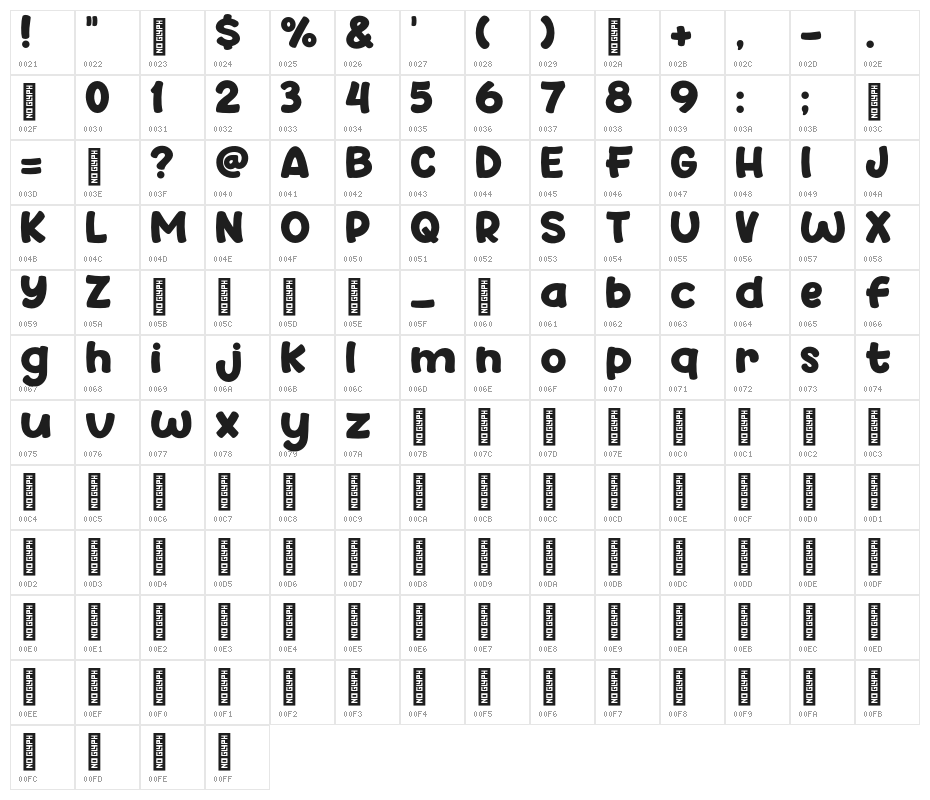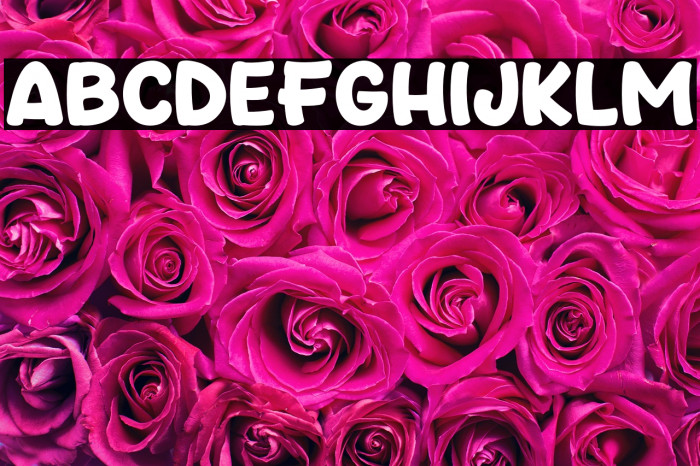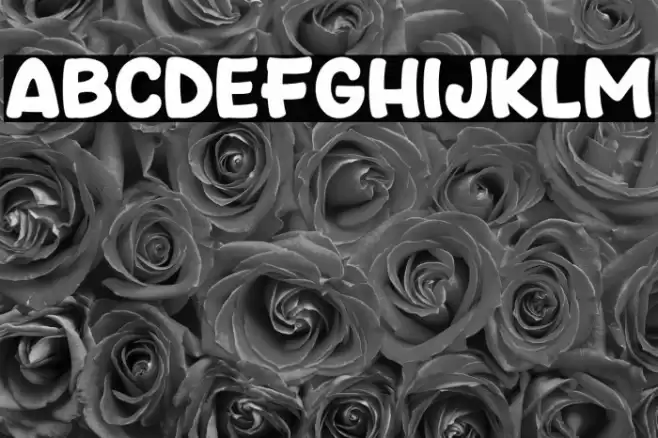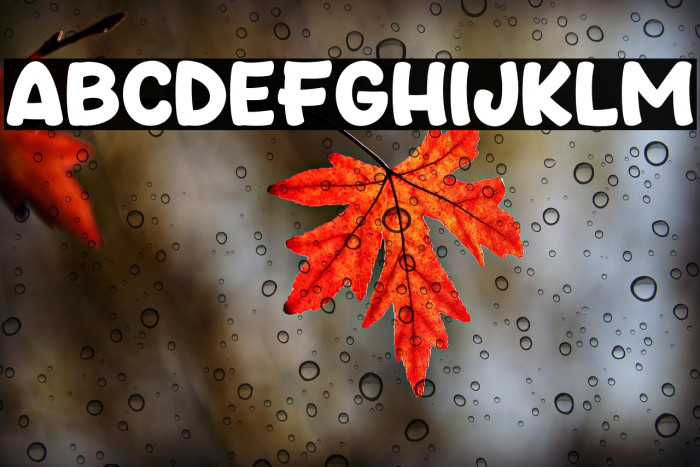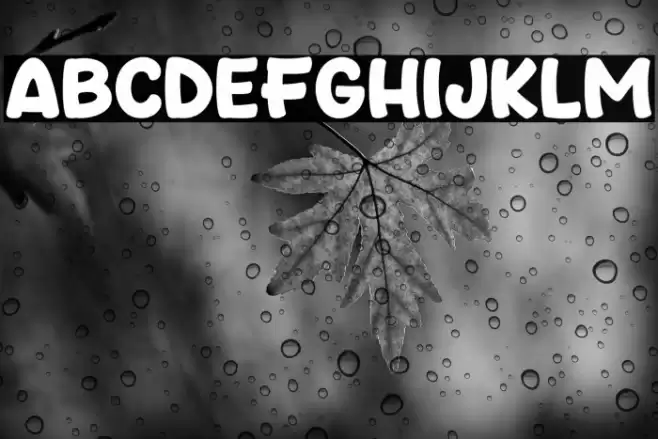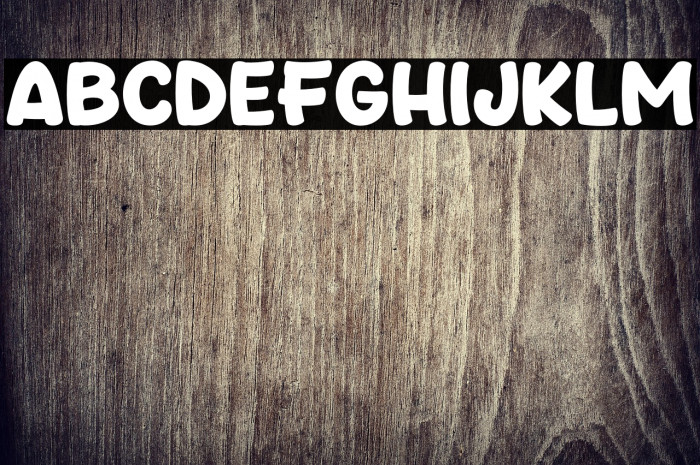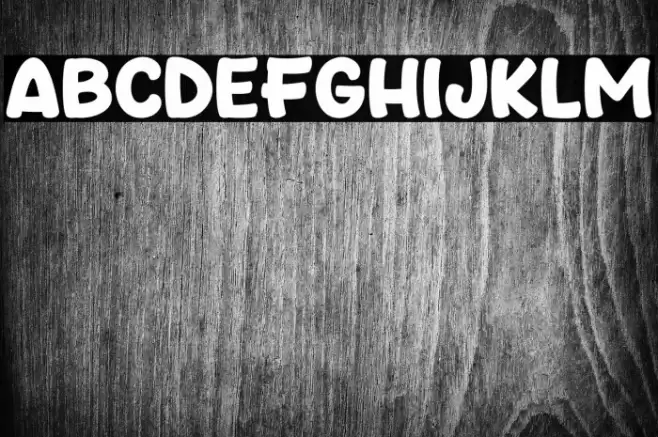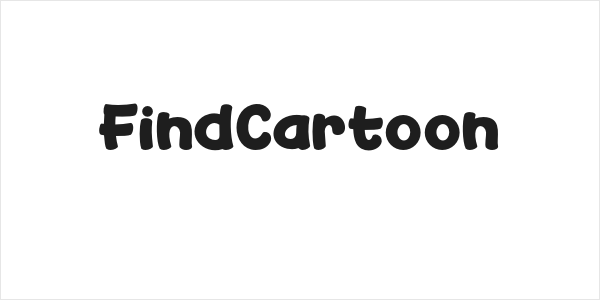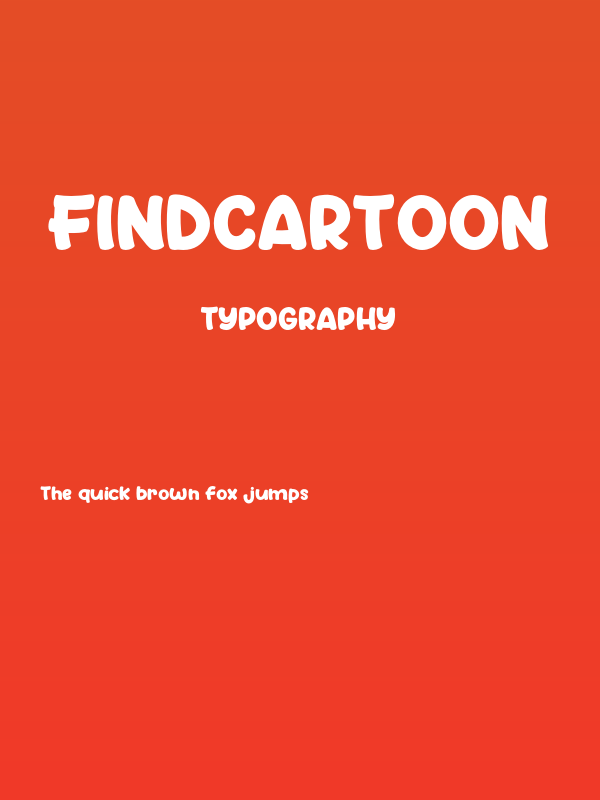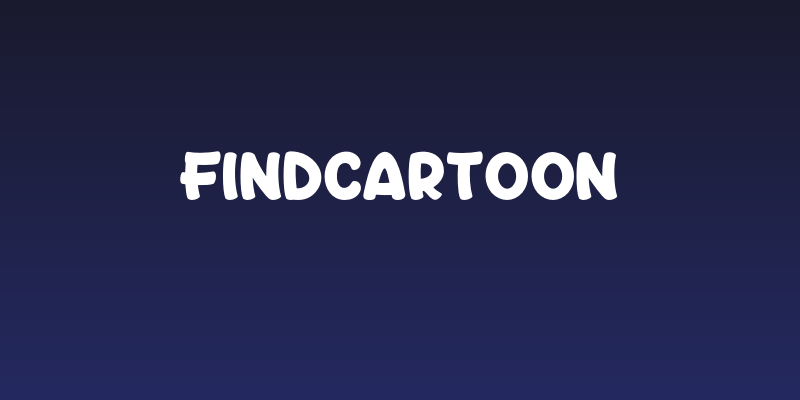
FindCartoon Font
FindCartoon Description
This playful and bold font features rounded, thick strokes that give it a cartoonish and friendly appearance. The letters are slightly irregular, adding a whimsical touch that makes it stand out. The uppercase and lowercase characters maintain a consistent style, with a bubbly form that is both approachable and fun. The numbers and special characters follow the same design principles, ensuring a cohesive look across all glyphs. This font is perfect for projects that require a lighthearted and informal tone, making it ideal for children's books, comic strips, or playful branding.
| Proposed Projects | Children's books, comic strips, playful branding, party invitations, and educational materials. |